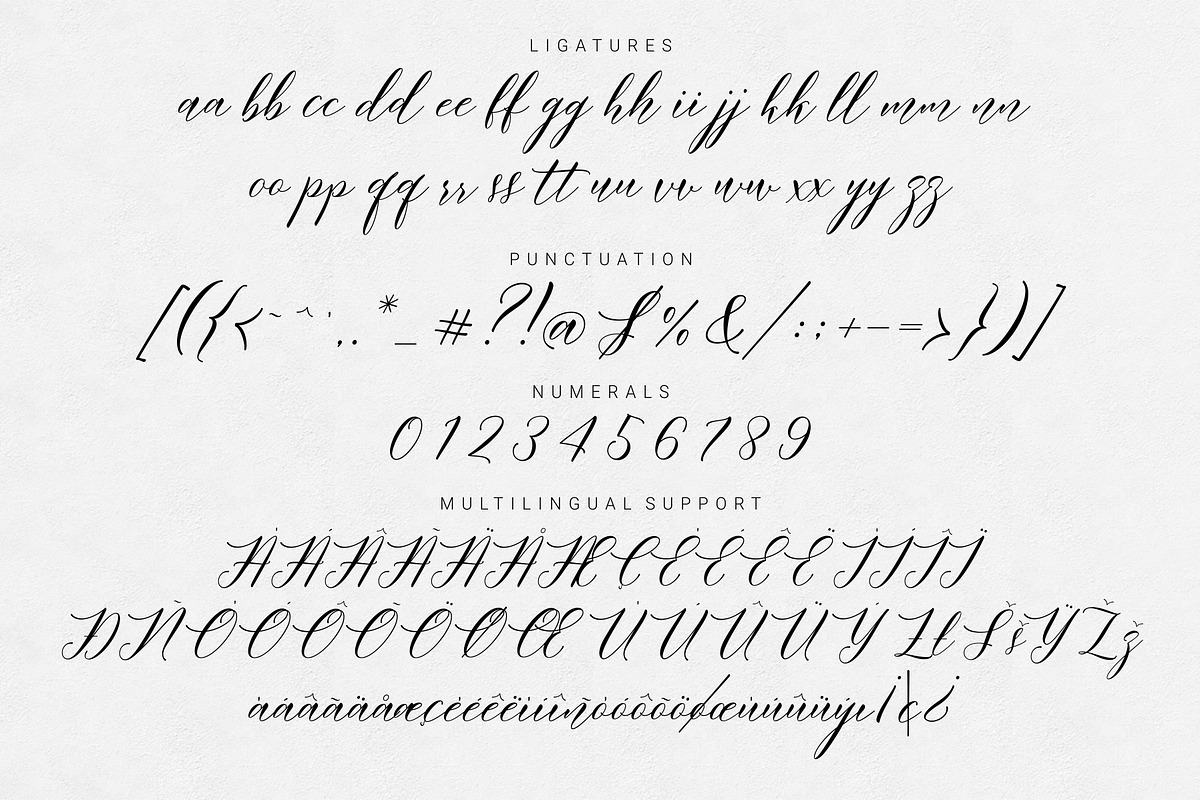
Meetha Script
Introducing Meetha Script
Hi Designer, Coming again to complete your script font collection..! Meetha Script is modern calligraphy script font. This is a beautiful script font with italic style. Made gently and danced to give the character of modern writing that is sweet, simple, stylish and firm.
With a style like this, this font will be suitable in use for logo's, branding projects, homeware designs, product packaging, mugs, quotes, posters, shopping bags, logo's, t-shirts, book covers, name card, invitation cards, greeting cards, and all your other lovely projects.
You can use this font for your job very easily. Because there are many features in it. Contains the complete set of lower and uppercase letters, punctuation, numbers, web fonts, and multilingual support. This font also includes several ligatures and alternative style Stylistic Set For those of you who have software that is capable of working OpenType (Corel Draw / Photoshop / Illustrator / InDesign).